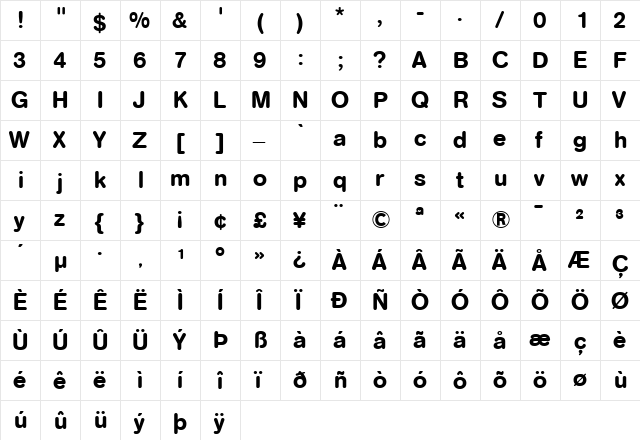
AG Book Rounded Bold
Design Context for AG Book Rounded Typeface
AG Book Rounded softens its letterforms with rounded terminals, giving it an approachable, friendly quality that works well in consumer-facing and digital contexts. The heavy weight commands attention and anchors typographic hierarchies.
Well-suited to UI design, mobile interfaces, and any brand that wants approachability without sacrificing clarity.
Font Pairing: Pairs well with a rounded or humanist sans for body copy, maintaining the friendly tone without relying on AG Book Rounded to carry extended reading.
Pro Tip: Use AG Book Rounded for UI elements, app interfaces, and anywhere a friendly, approachable tone needs to be maintained without sacrificing clarity.